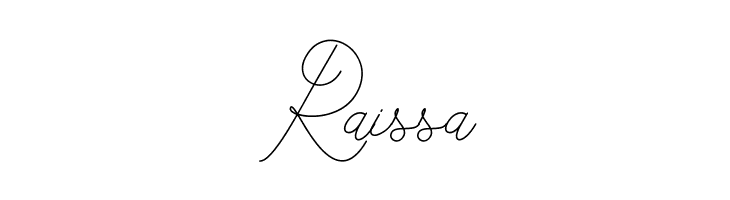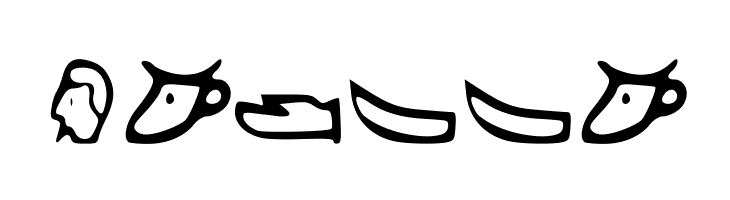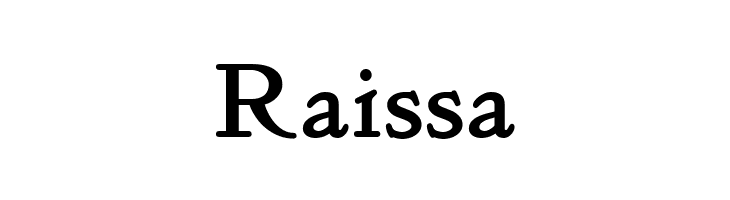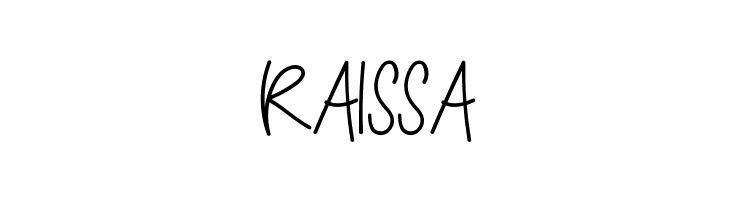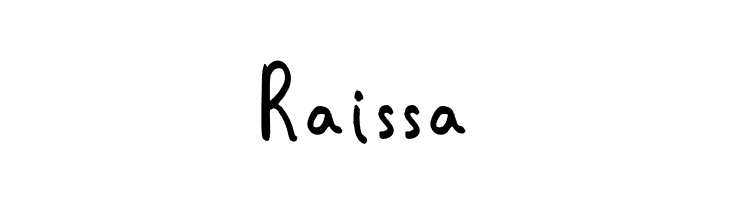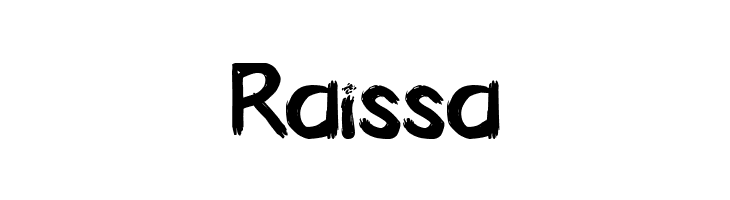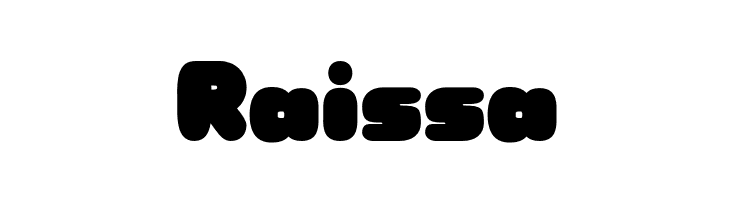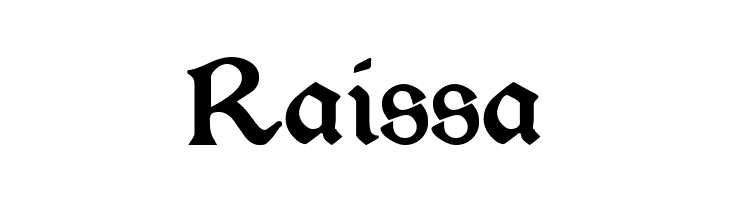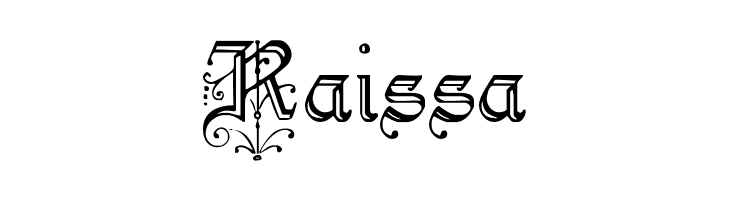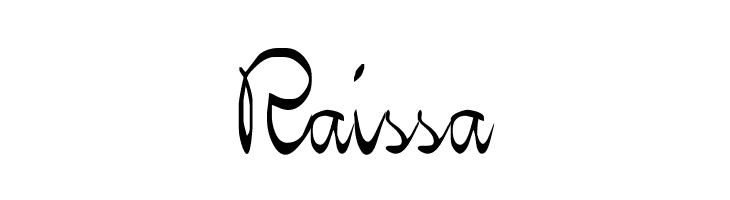
) A modern slab serif font with strong lines and prominent serifs.
A bold, flowing script font with elegant, connected letters and a handwritten style.
A decorative Gothic font with intricate flourishes and modern elements.
A whimsical and artistic script font with dynamic curves and medium contrast.
) A modern geometric slab serif font with bold, structured characters.
A decorative font with medieval, handcrafted elements and intricate details.
A vintage serif font with bold, sharp serifs and elegant curves.
A classic serif font with elegant and refined characters.
A graceful script font with flowing, cursive strokes and elegant loops.
A playful and artistic font with elongated, curved lines and a modern look.
A bold, hand-drawn font with a playful and informal style.
A playful, casual handwritten font with smooth, flowing lines and thin strokes.
An elegant and fluid script font with interconnected, flowing letterforms.
A modern, geometric sans-serif typeface with clean lines and balanced proportions.
A modern, geometric sans-serif font with uniform stroke widths.
A bold, artistic font with a freehand, hand-drawn appearance.
A decorative font with spiral and circular motifs, evoking an ancient and mystical feel.
A graceful and flowing script font with elegant, cursive letterforms.
A bold, decorative font with geometric shapes and intricate details.
A lively, flowing script font with elegant curves and bold uppercase letters.
A bold, rounded font with a playful and modern style.
A decorative, pictorial font inspired by ancient Egyptian hieroglyphs.
A playful, casual handwritten font with smooth, flowing lines.
A bold, brush-stroke font with a raw, artistic feel.
A playful, casual handwritten font with irregular strokes and an organic flow.
A playful, casual handwritten font with smooth, flowing lines and uniform strokes.
A bold, modern sans-serif font with tall, narrow characters and consistent stroke thickness.
A bold serif font with a vintage yet modern style, featuring sharp serifs and a strong presence.
A casual, playful handwritten font with smooth, flowing lines and rounded edges.
A bold, angular font with tall, narrow letterforms and sharp edges.